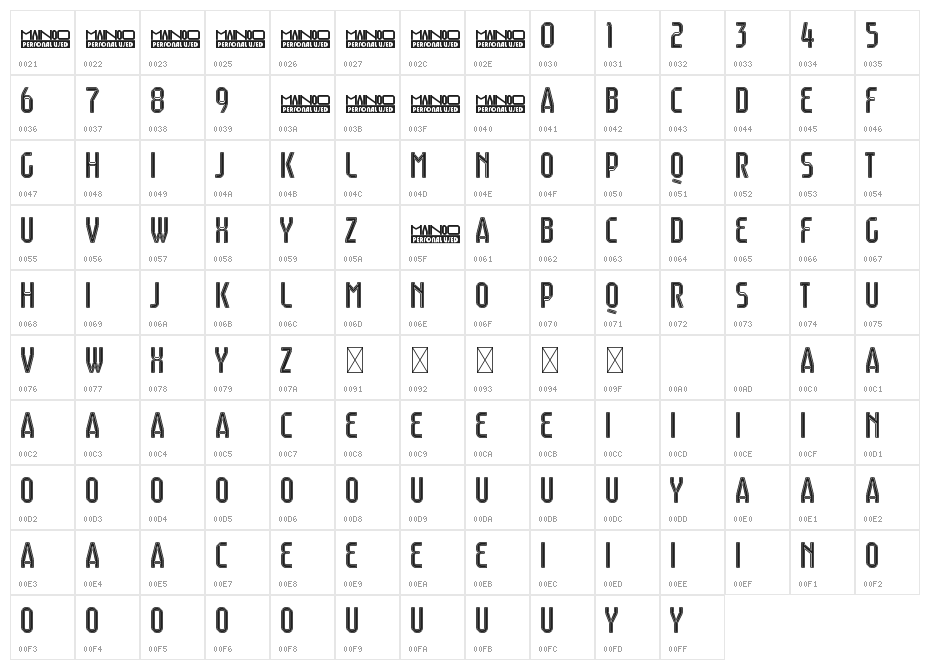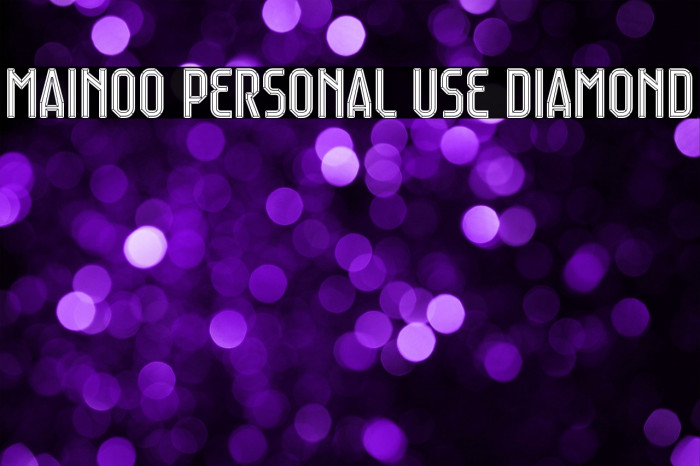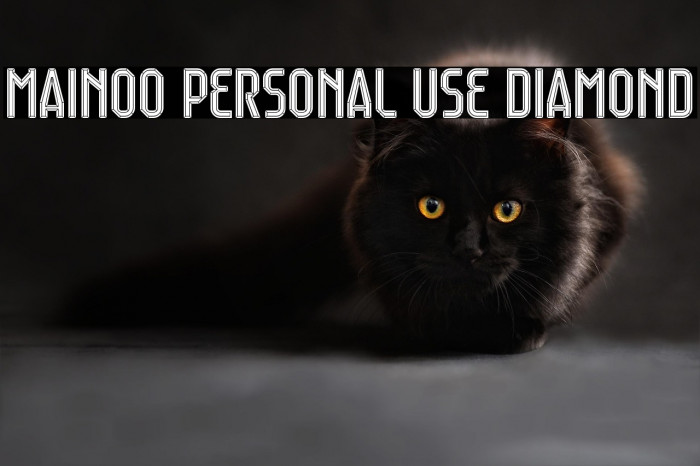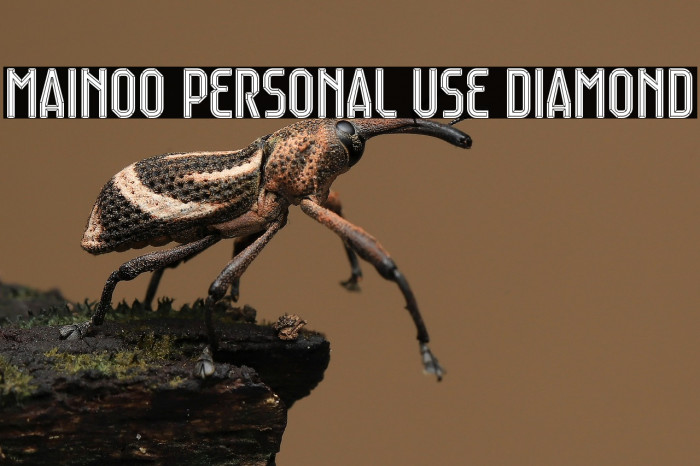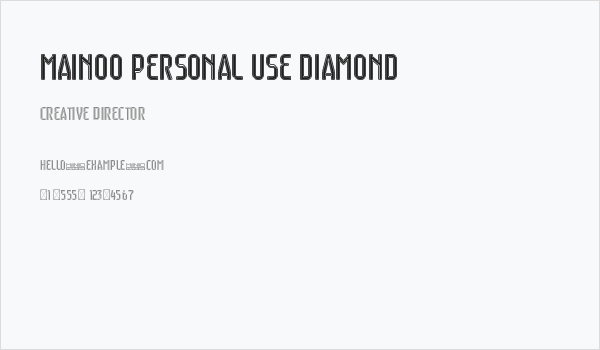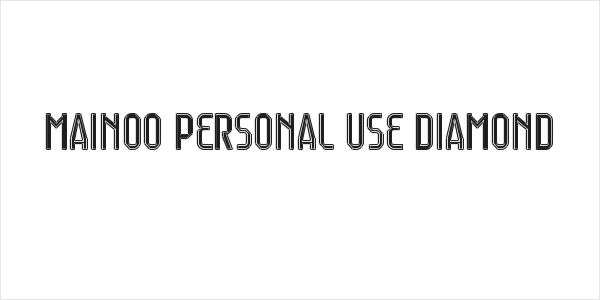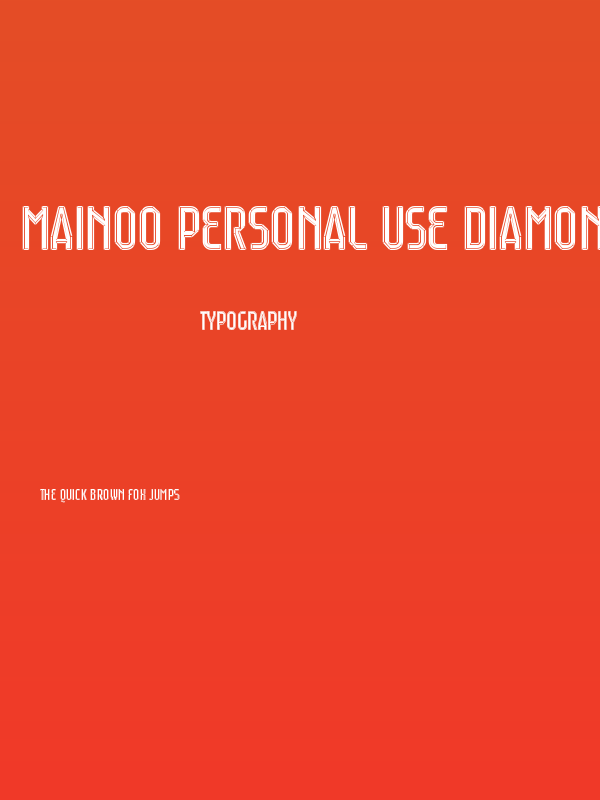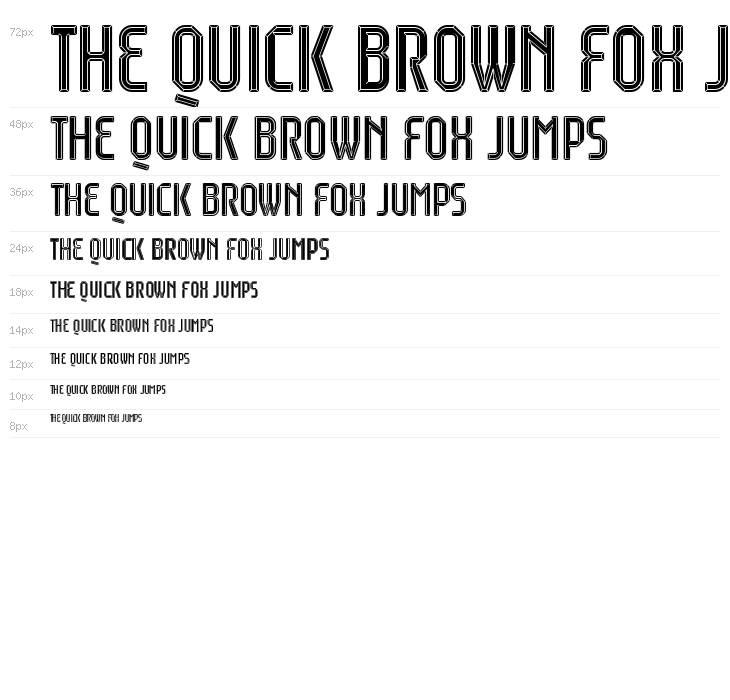
Mainoo Personal Use Diamond Font
Mainoo Personal Use Diamond Description
This font features a bold, geometric design with a distinct three-dimensional effect created by its outlined structure. The uppercase letters are angular and sharp, giving a modern and futuristic appearance. The numbers and special characters maintain this style, ensuring consistency throughout. The font's unique design makes it stand out, suitable for projects that require a strong visual impact. Its structured form and clear lines make it ideal for headlines and titles, where readability and style are equally important.
| Proposed Projects | Ideal for branding, posters, and headlines that require a modern and impactful look. |